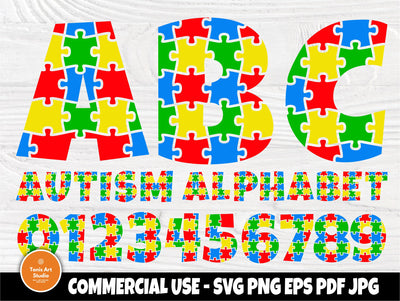
Autism Font SVG, Autism Alphabet, Svg Cut Files, Autism Awareness Svg, Puzzle Letters Svg, Autism Monogram, Fonts for Cricut and Silhouette
* Make your own project with these beautiful Autism Letters SVG, Digital Download in SVG, PNG, EPS, PDF, JPG format. Autism Font SVG, Autism Alphabet, Svg Cut Files, Autism Awareness Svg, Puzzle Letters Svg, Autism Monogram, Fonts for Cricut and Silhouette.